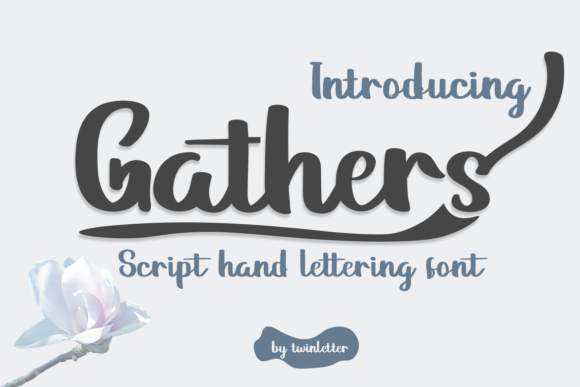
Introducing Gathers Font, the Enchanting Script that Will Elevate Your Designs!
Journey into the world of typography and discover Gathers Font, a modern script font that is here to captivate your senses. Created by the talented twinletter, Gathers Font is more than just a collection of letters and symbols; it's an artistic masterpiece that will transform your creative ideas into breathtaking realities.
With its elegant curves and enchanting strokes, Gathers Font is the perfect choice for adding a touch of sophistication and charm to your designs. Whether you're working on a newspaper title, a wedding invitation, or a heartfelt letter, Gathers Font will effortlessly elevate your words and make them shine.
Imagine the impact your newspaper headlines will make when they're adorned with the graceful lines of Gathers Font. Every letter will dance across the page, capturing readers' attention and drawing them into your captivating stories. Your words will flow effortlessly, like a gentle stream of consciousness, inviting readers to immerse themselves in the world you've created.
Gathers Font is not just for newspapers; its versatility knows no bounds. Unleash your creativity and use it to design stunning wedding invitations that will set the tone for your special day. The elegant curves of Gathers Font will add a touch of romance and timeless beauty to your invitations, making them cherished keepsakes that your guests will treasure for years to come.
The possibilities with Gathers Font are endless. Let your imagination soar and explore new horizons of creativity. Use it to craft heartfelt letters that express your emotions with grace and eloquence. Design eye-catching posters that demand attention and leave a lasting impression. Create unique branding materials that set your business apart from the competition. With Gathers Font, the only limit is your own imagination.